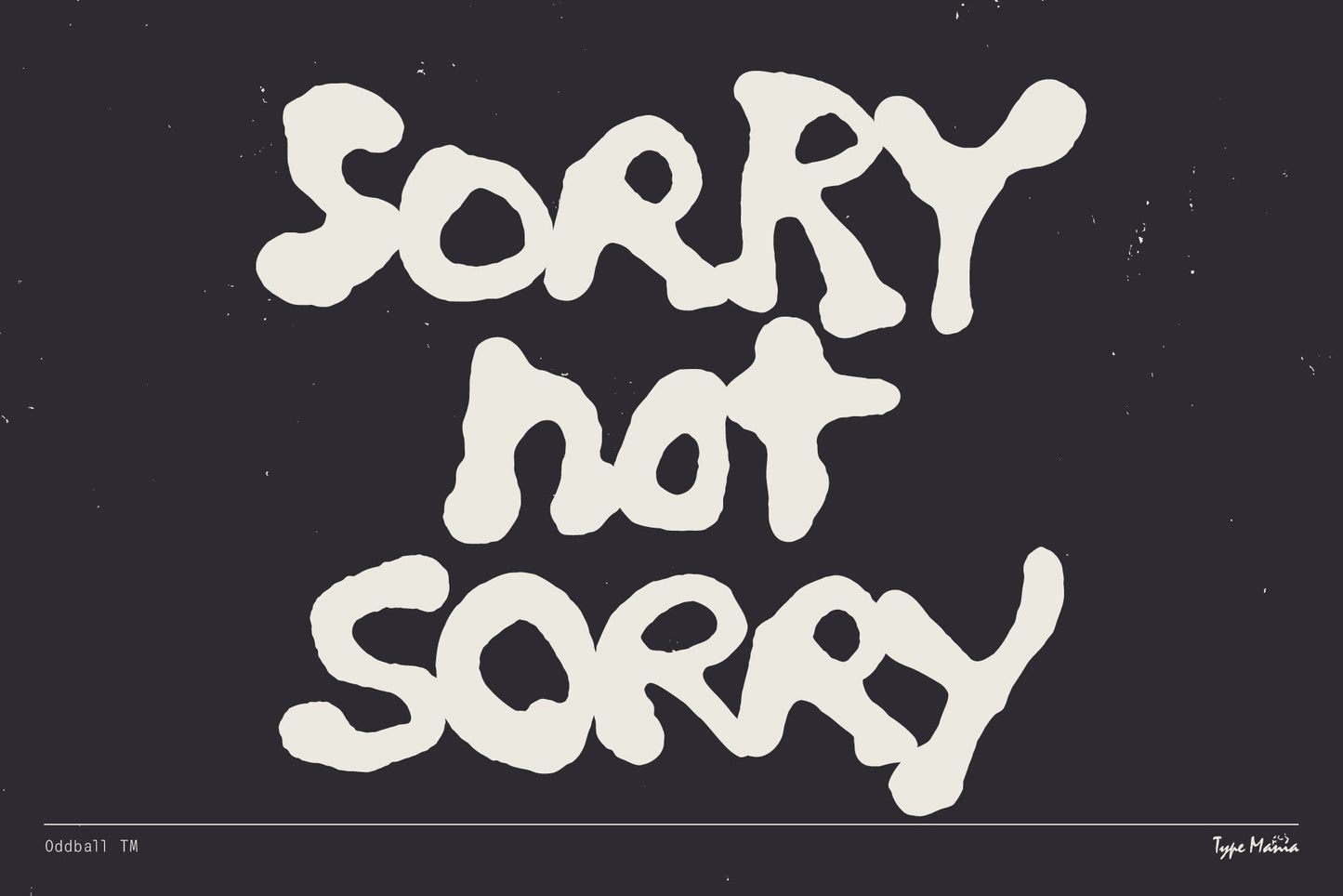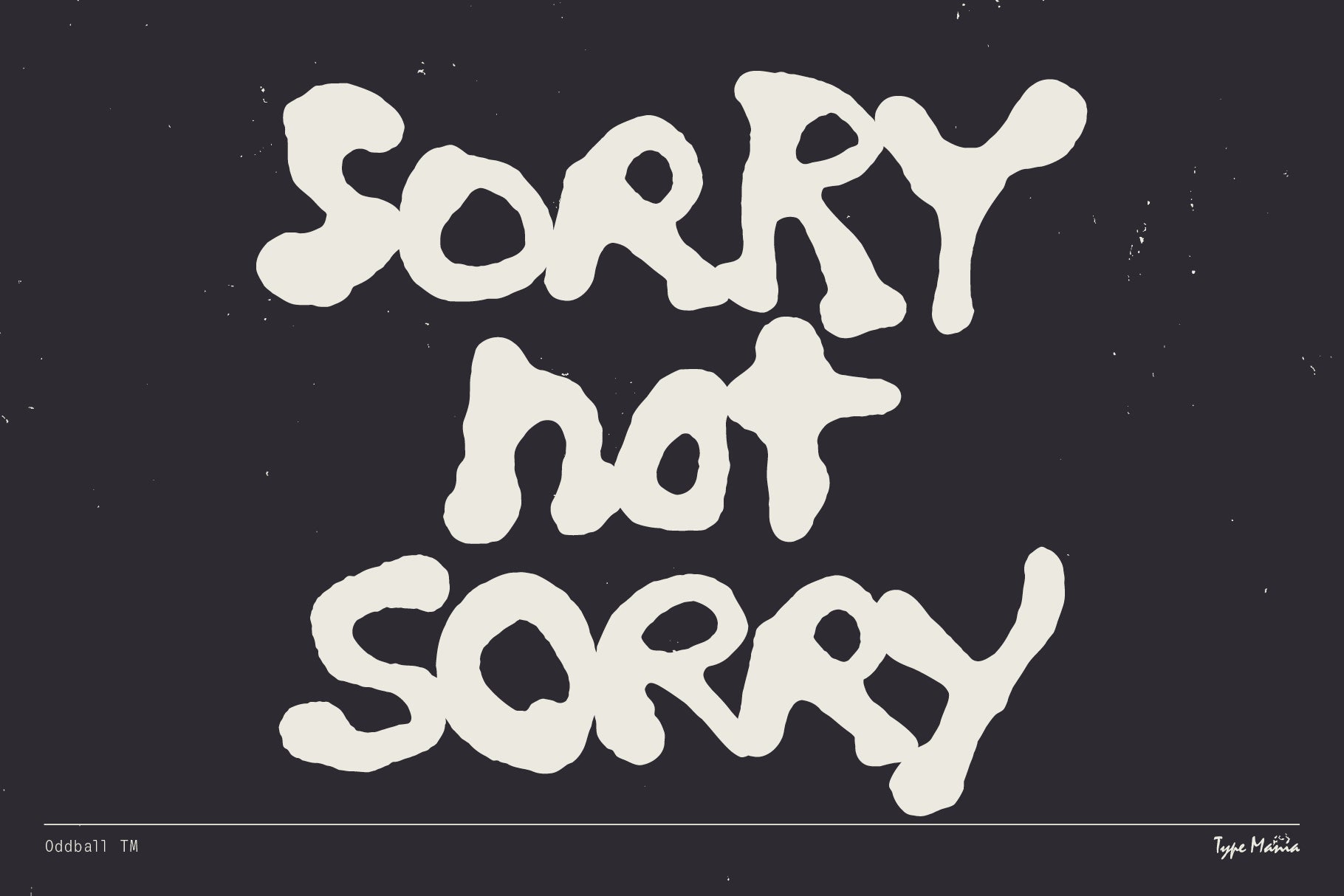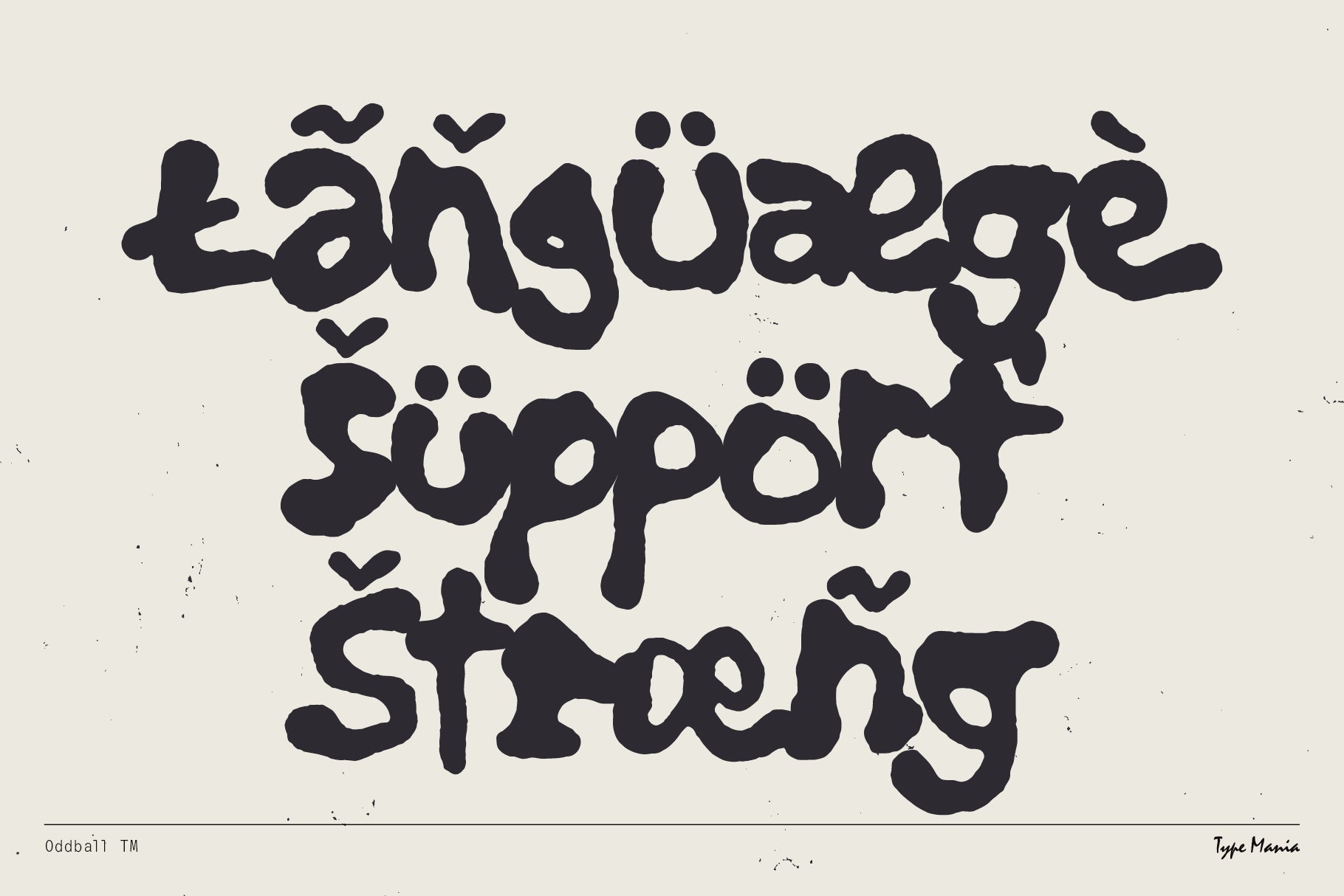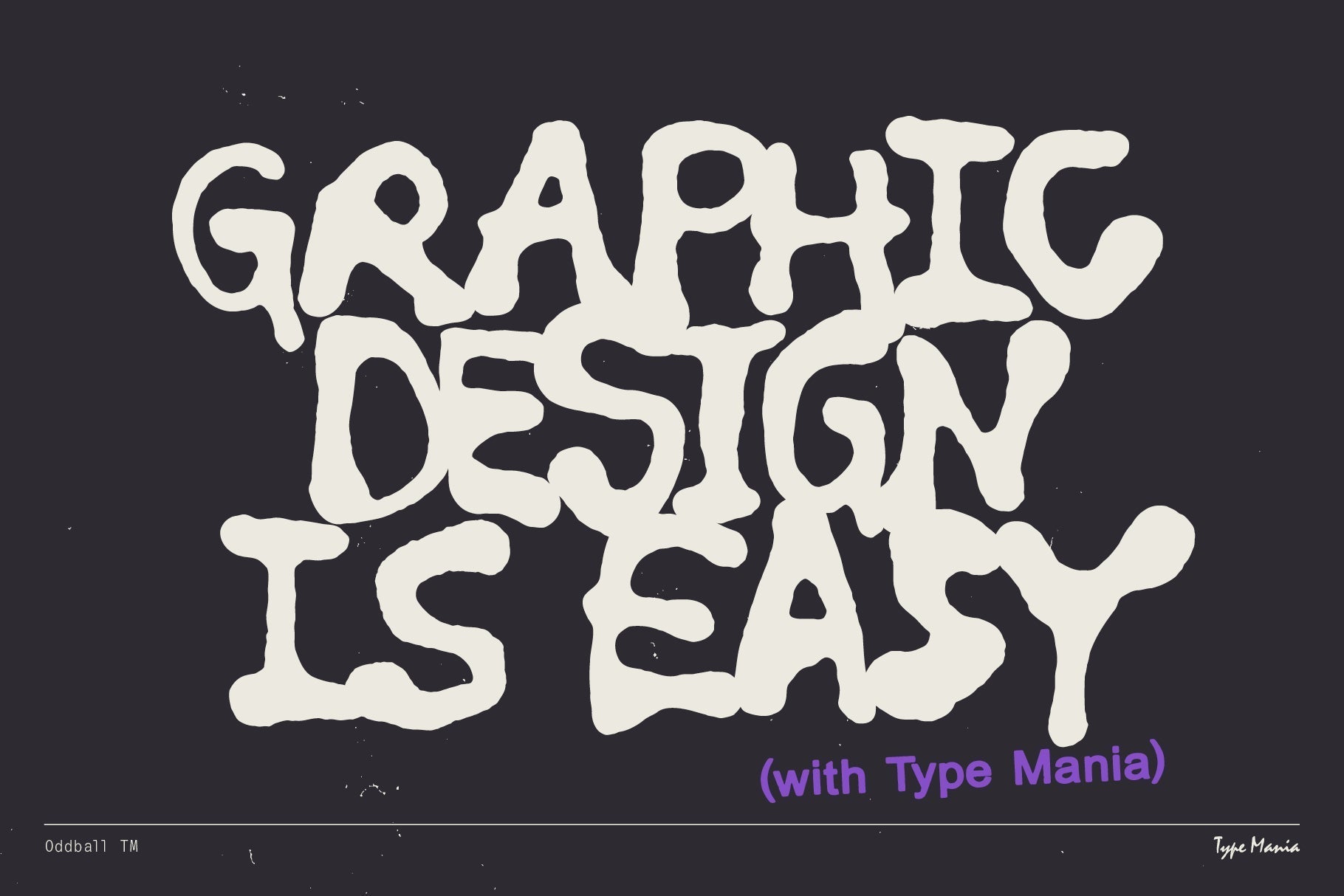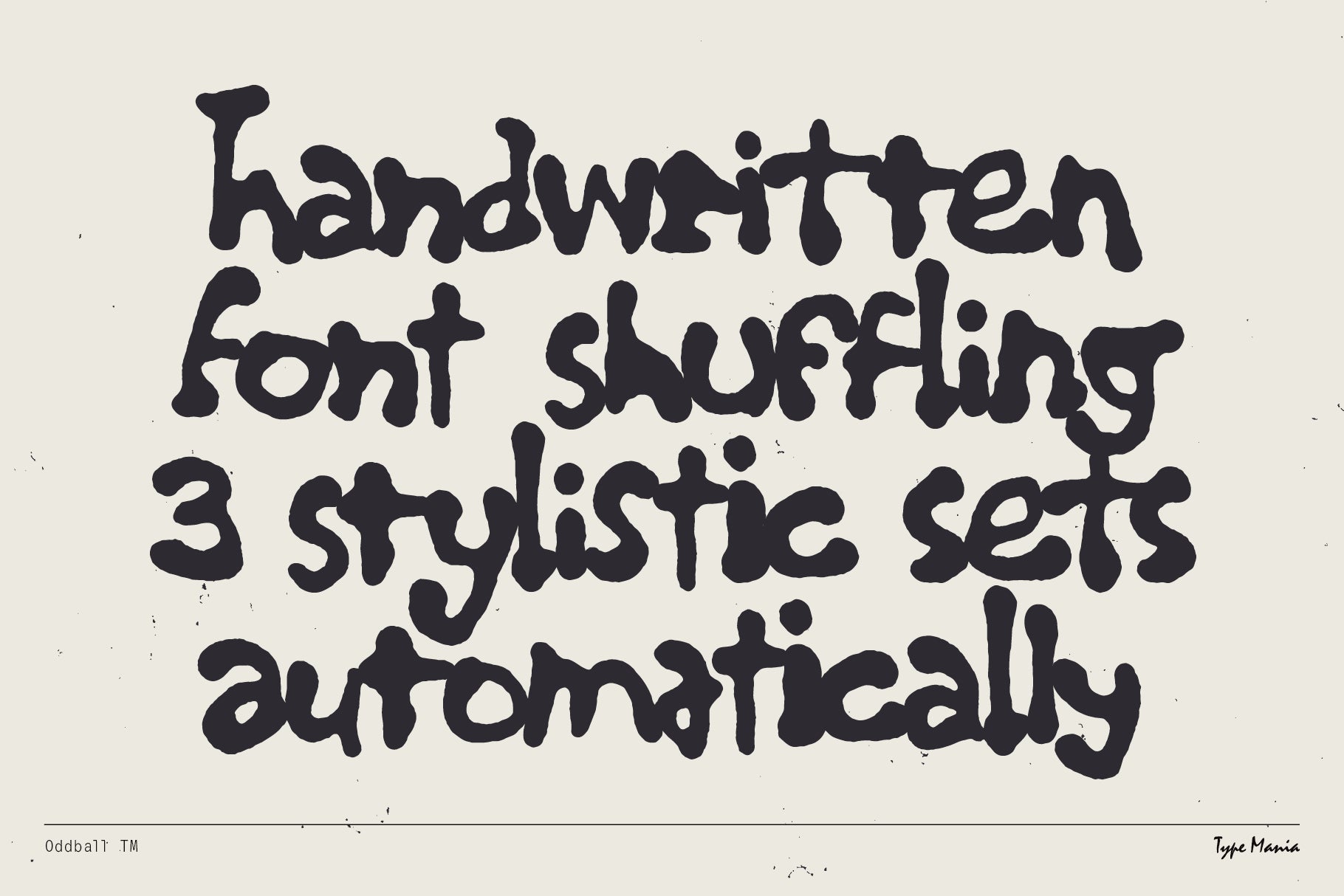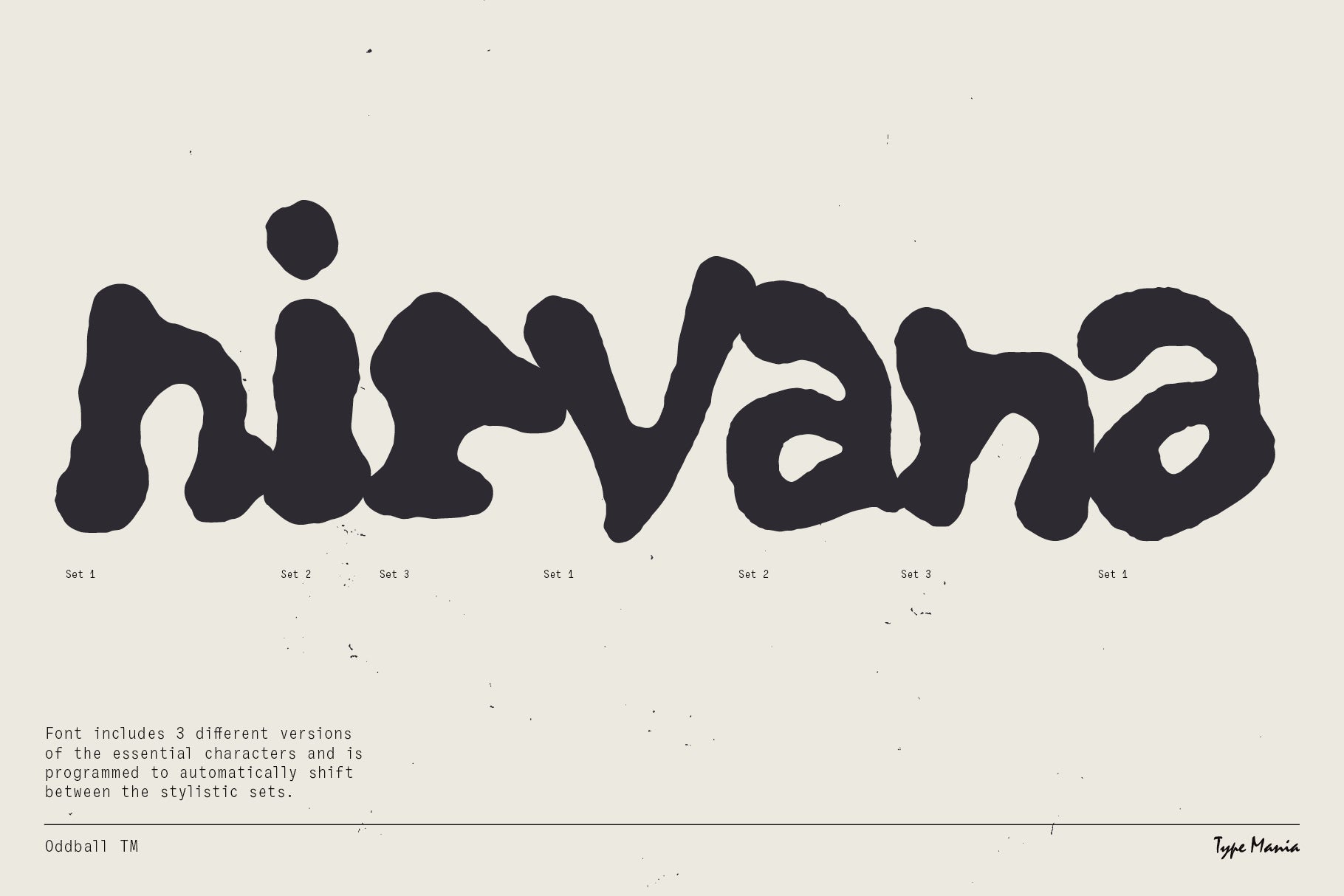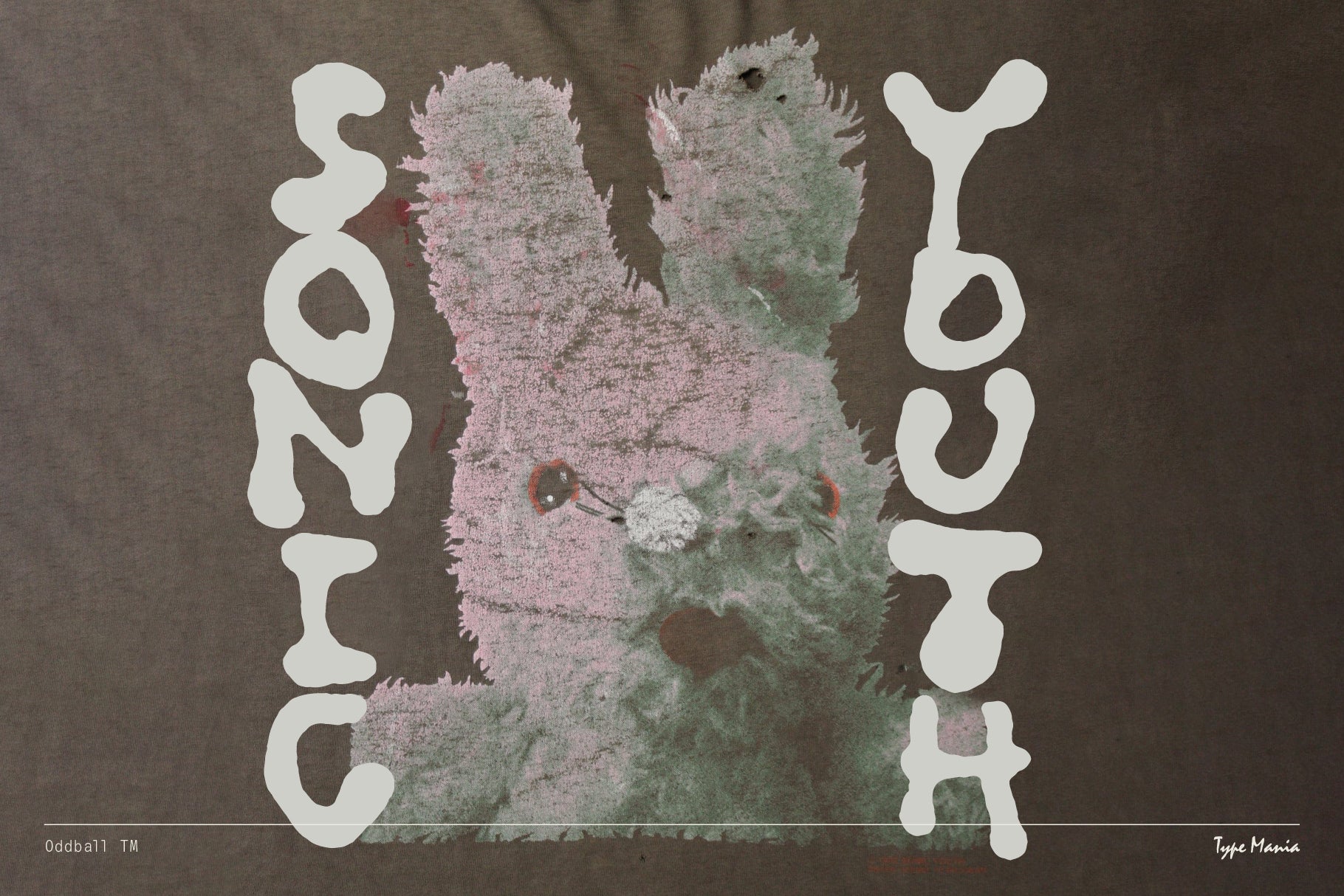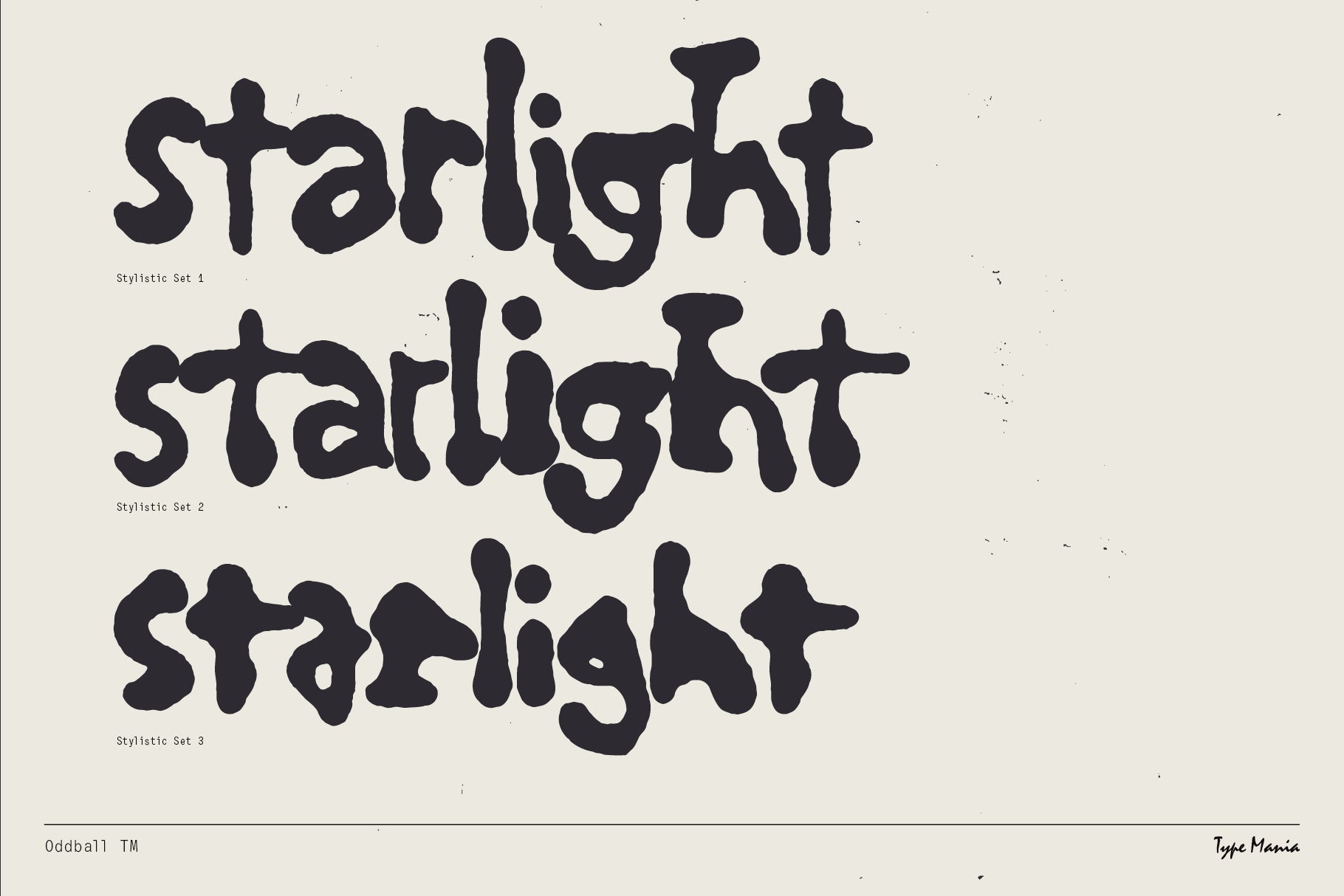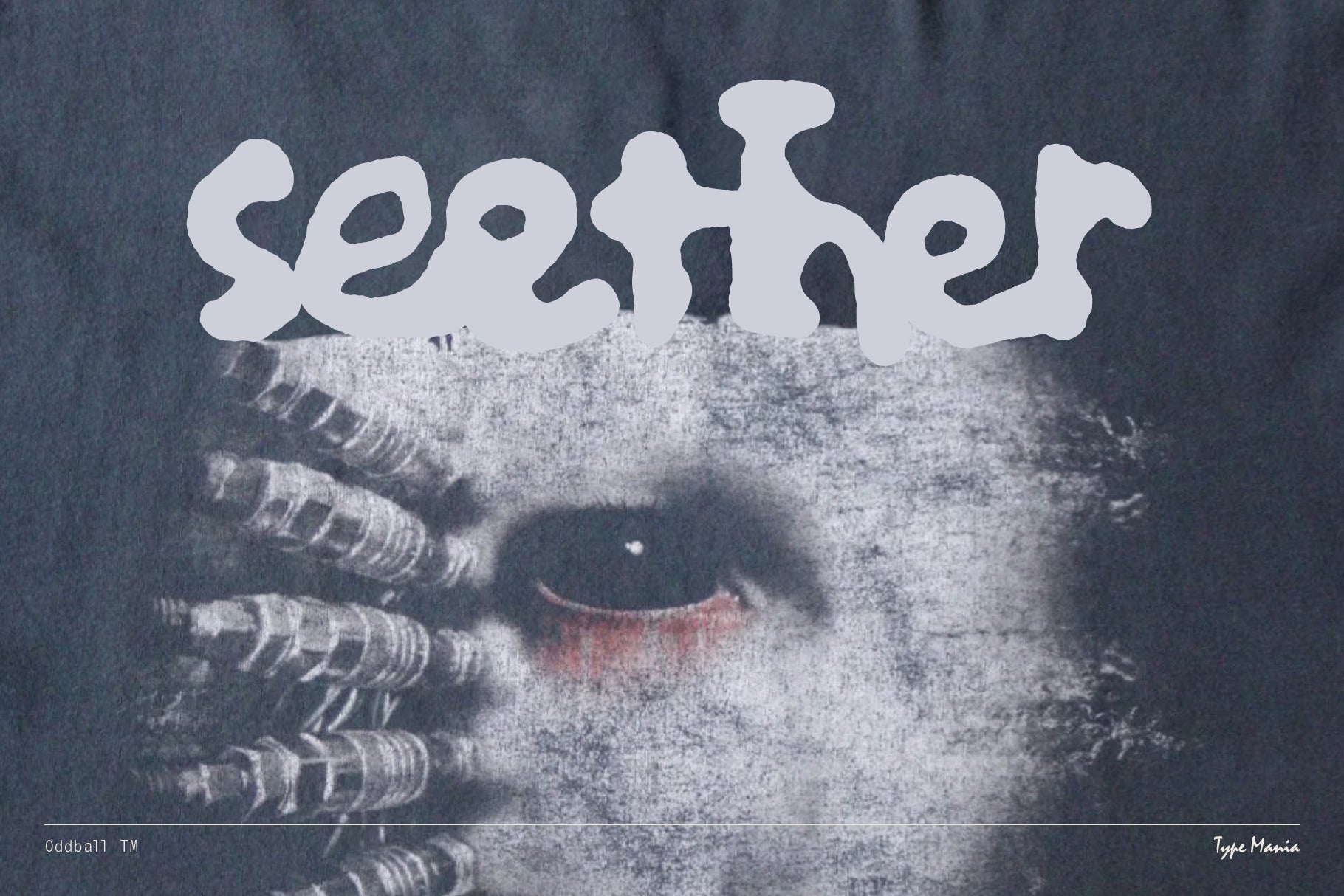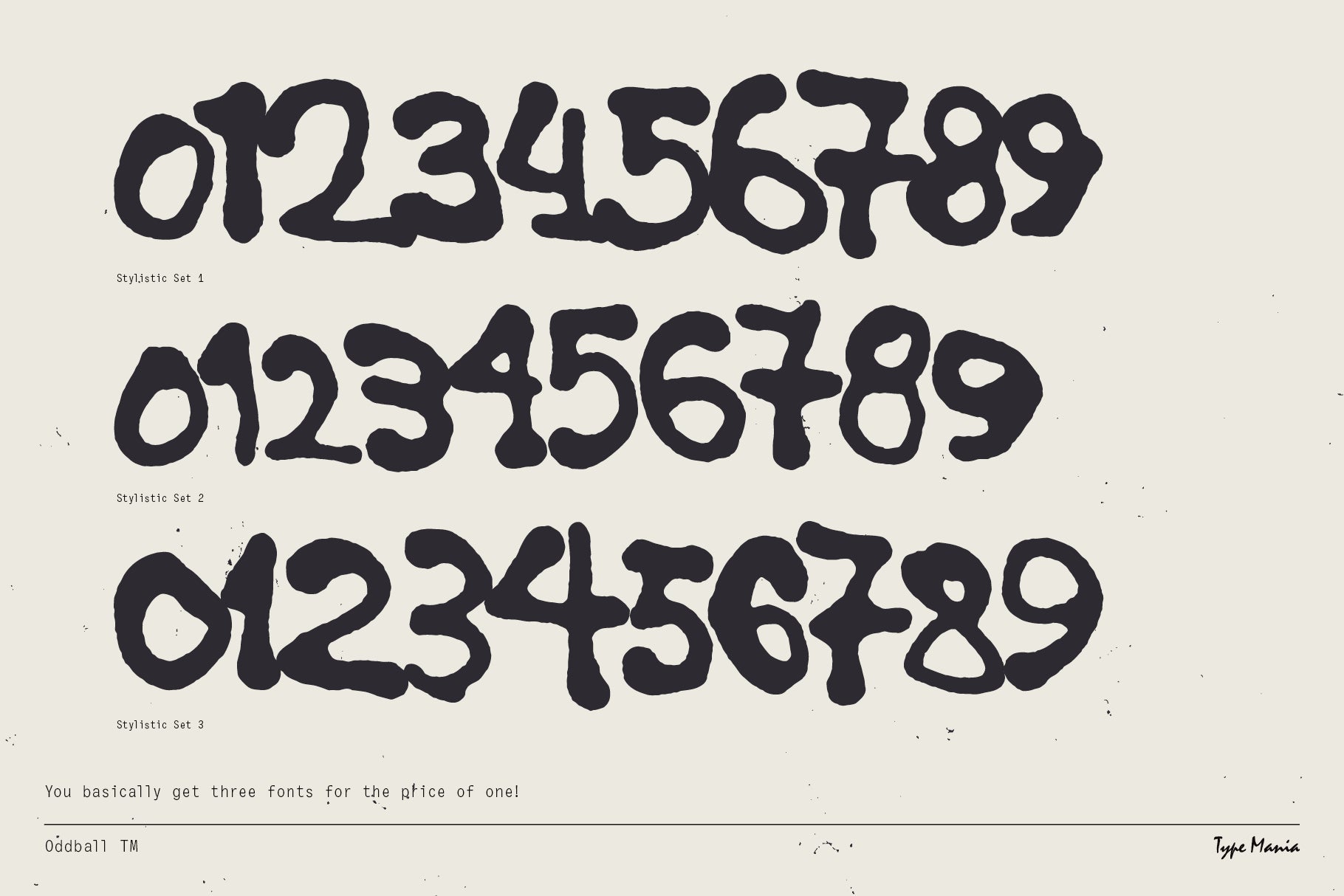
Check out Oddball TM, the blob-y handwritten font delivering hard on the 90s vibes. Perfectly imperfect, just like your favorite vintage band t-shirt. Get in where u fit in and remember: bad attitude keeps you young.
OpenType features
3 stylistic sets
The font is programmed to automatically shift between the stylistic sets